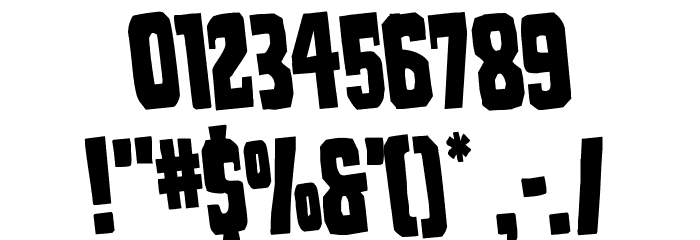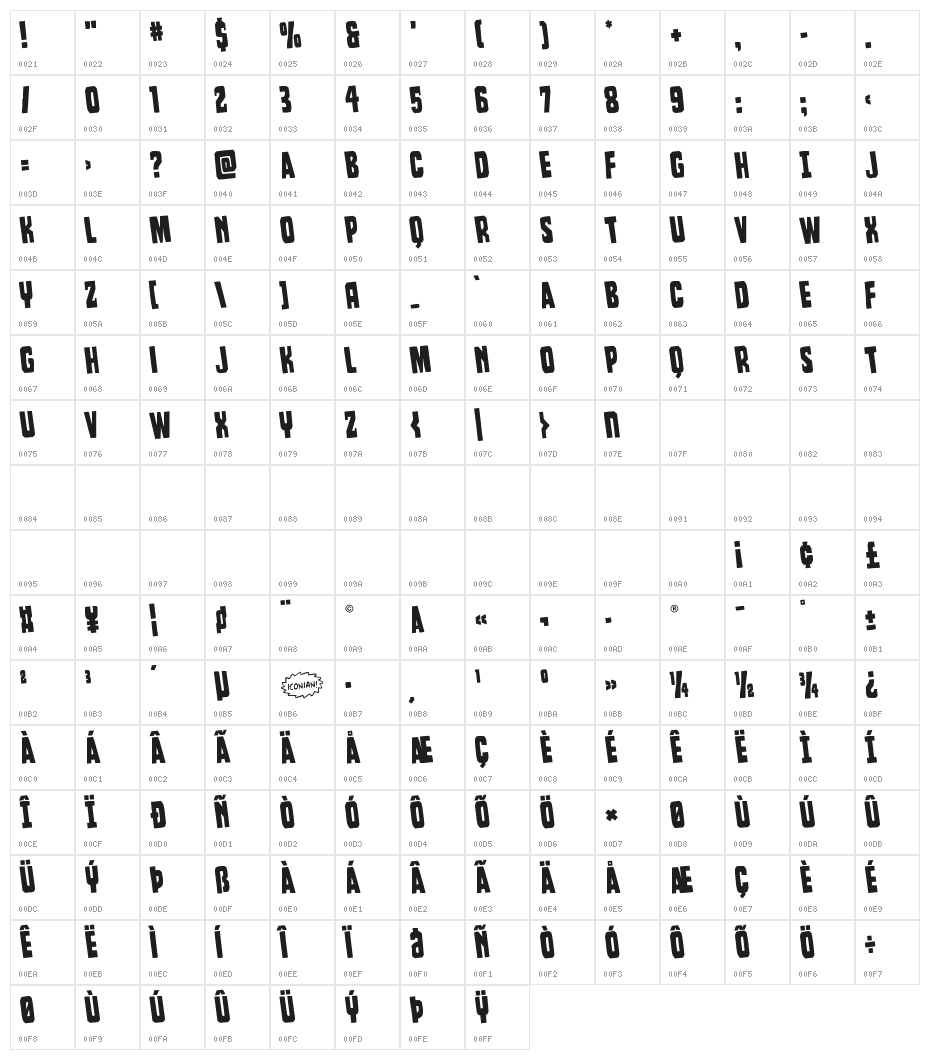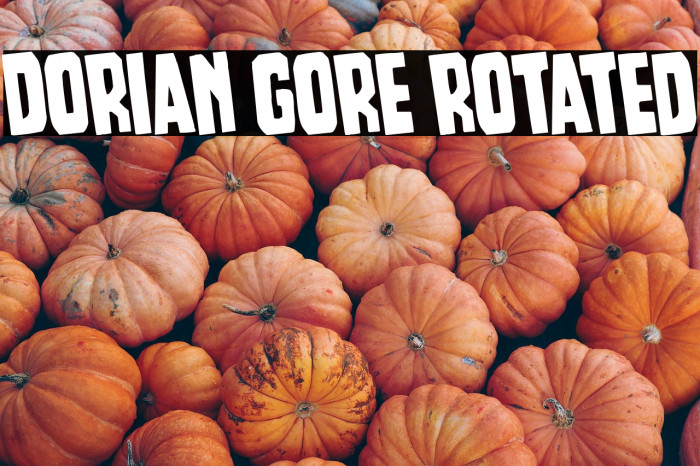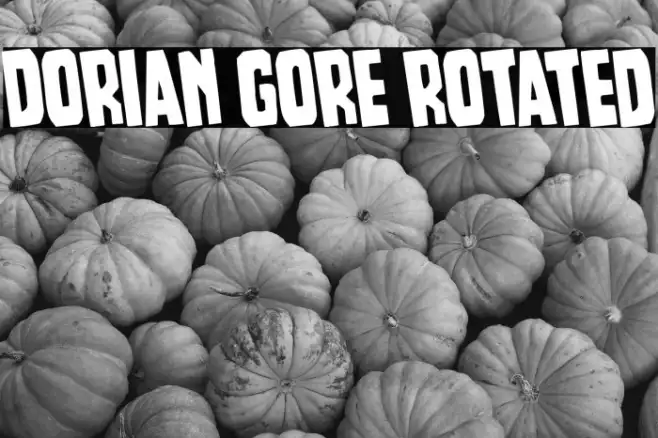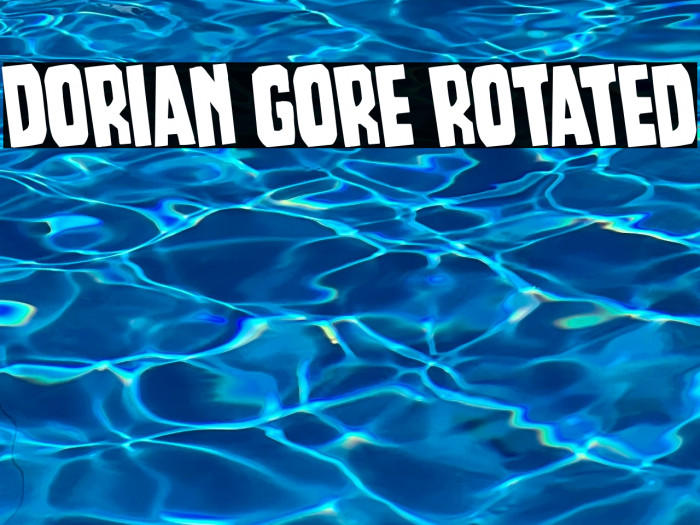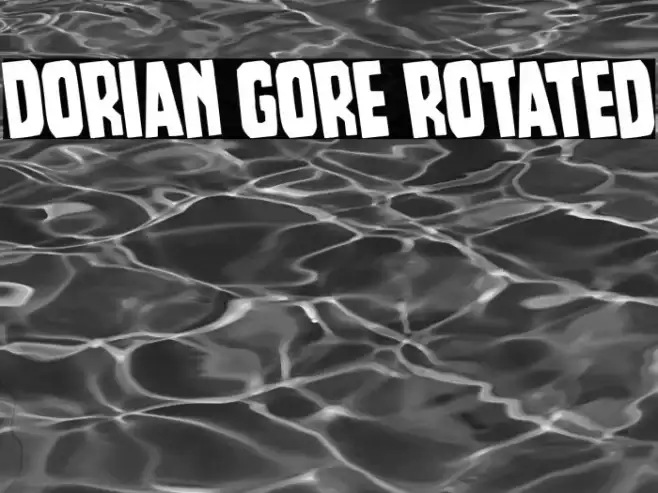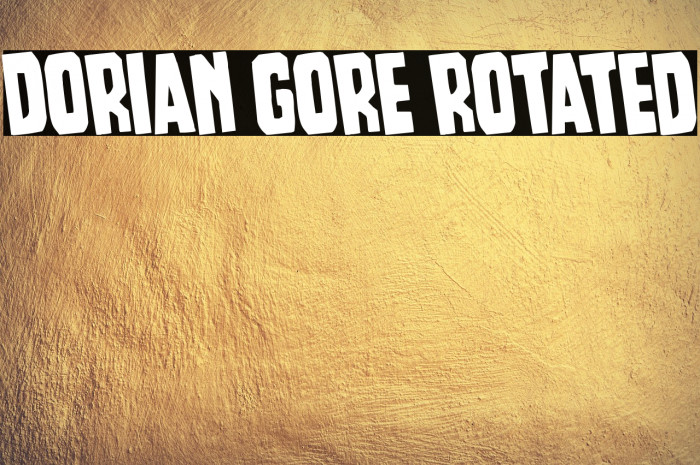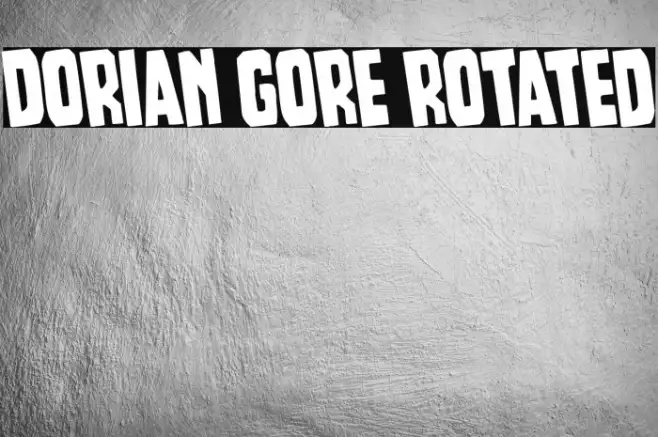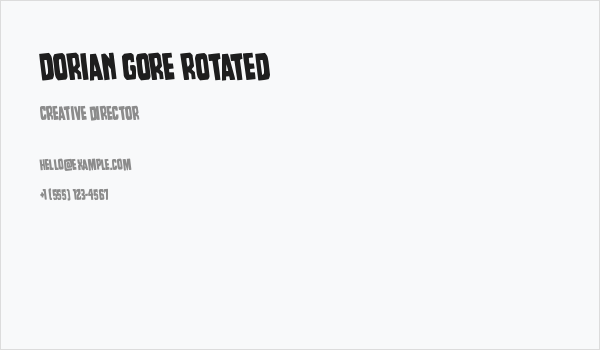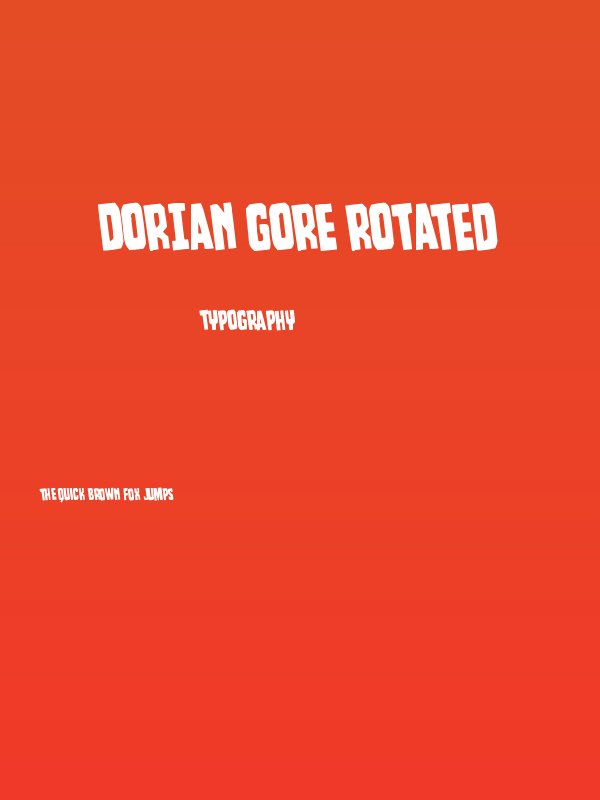
Dorian Gore Rotated Font
Dorian Gore Rotated Description
This font features a bold and impactful design with thick, blocky characters that convey a sense of strength and assertiveness. The letters are slightly condensed, giving them a compact appearance, while the edges are sharp and angular, adding to the overall boldness. The font maintains a consistent weight throughout, ensuring uniformity and balance. Its high contrast in stroke thickness enhances readability and makes it suitable for attention-grabbing headlines or titles. The style is modern and decorative, making it ideal for projects that require a strong visual presence.
| Proposed Projects | Ideal for posters, logos, branding materials, and any design requiring a strong, impactful typeface. |